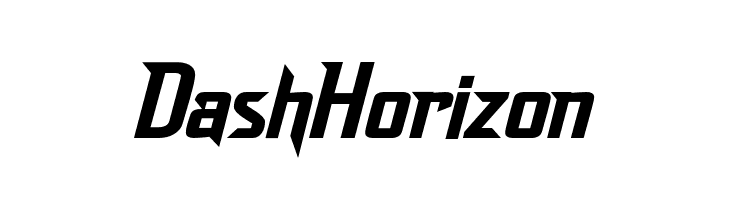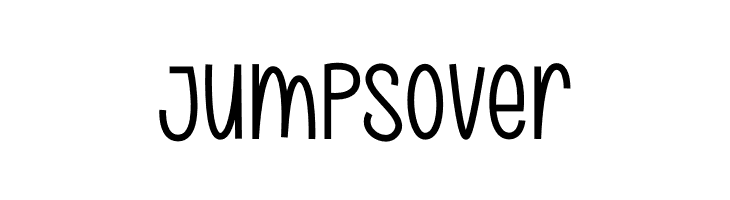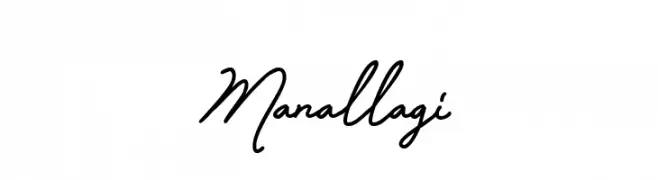
A playful, hand-drawn font with a whimsical and quirky style.
A playful, bold font with a hand-drawn, casual style.
A playful and artistic font with bold, irregular letterforms.
A bold, playful font with exaggerated strokes and a whimsical style.
A playful, bold font with decorative cutouts and rounded characters.
A playful, handwritten-style font with bold, rounded characters.
A rebellious, hand-drawn font with jagged, dynamic strokes.
A classic, elegant script font with flowing, cursive letterforms.
A bold, angular font with a dynamic, forward-leaning design.
A dynamic and fluid script font with elegant, flowing letterforms.